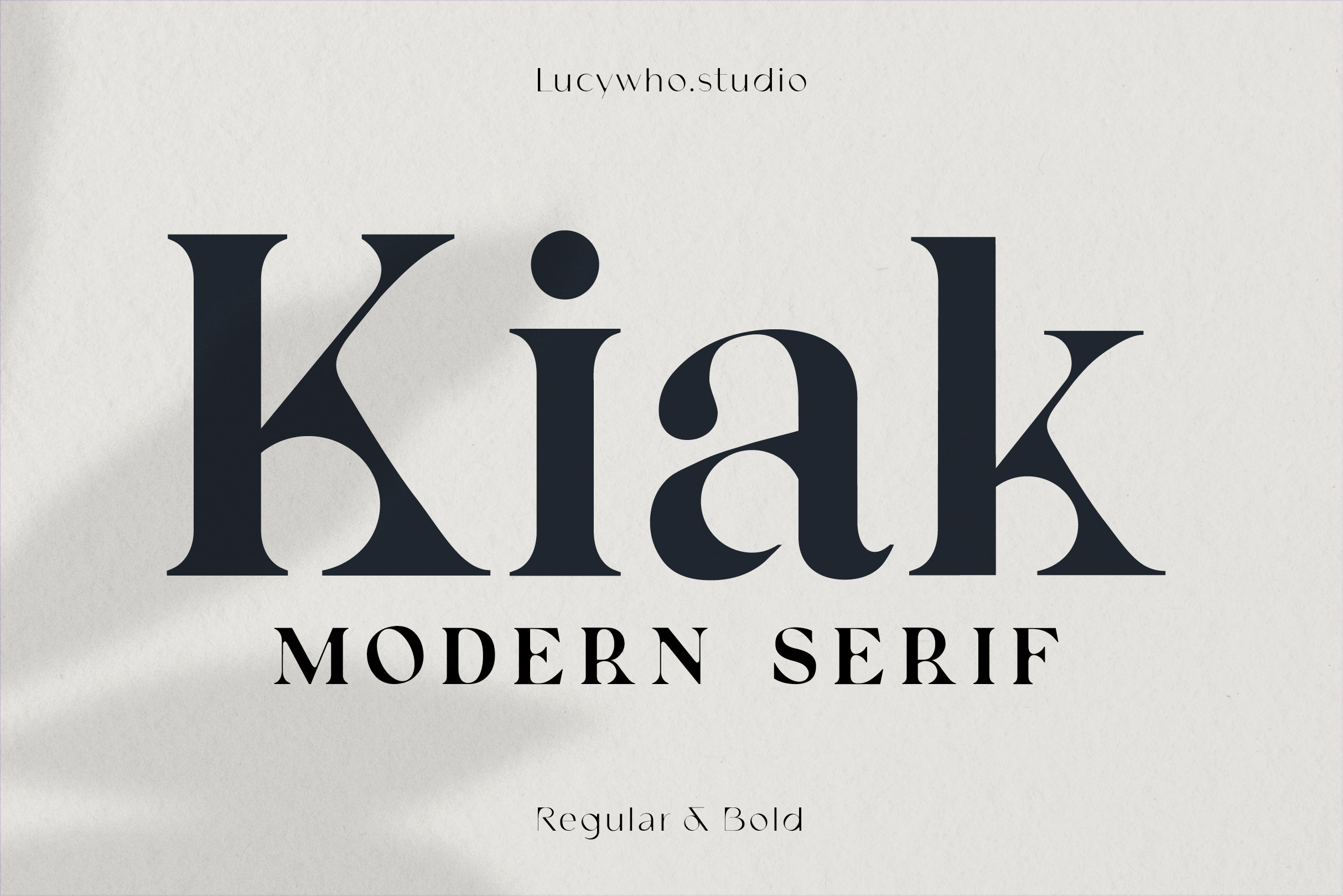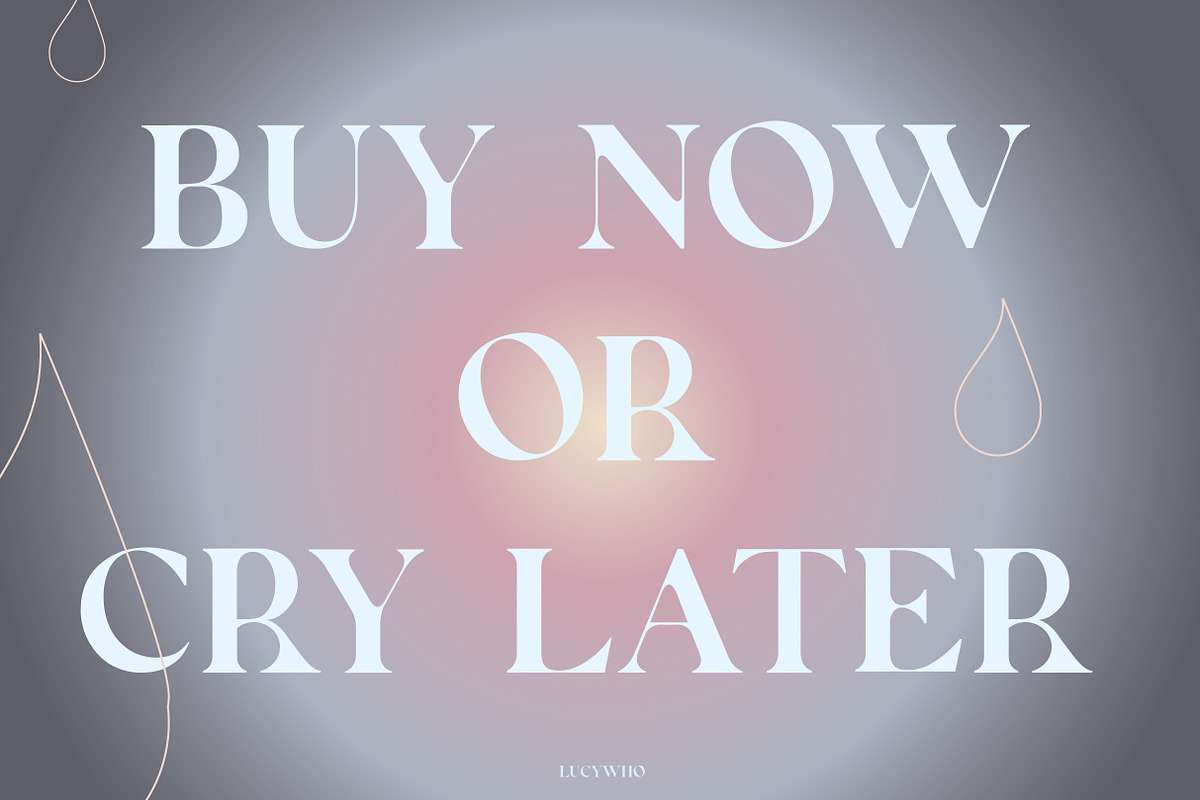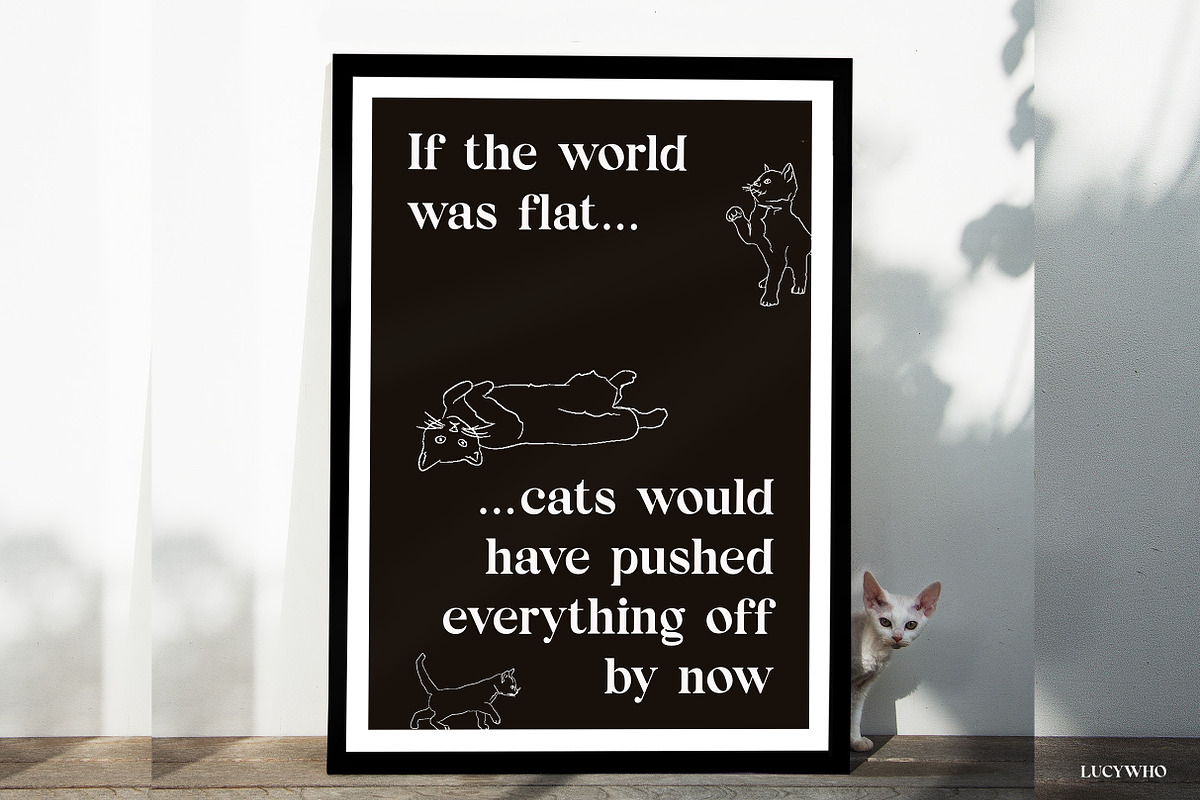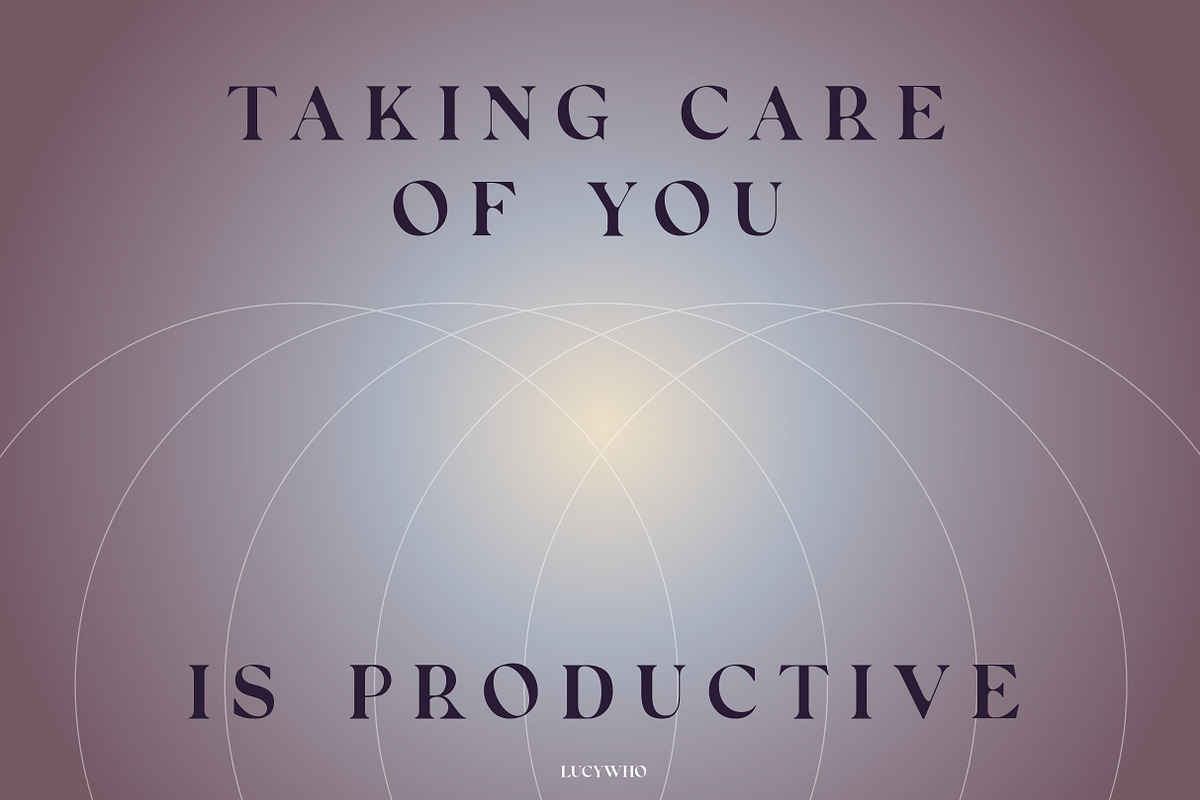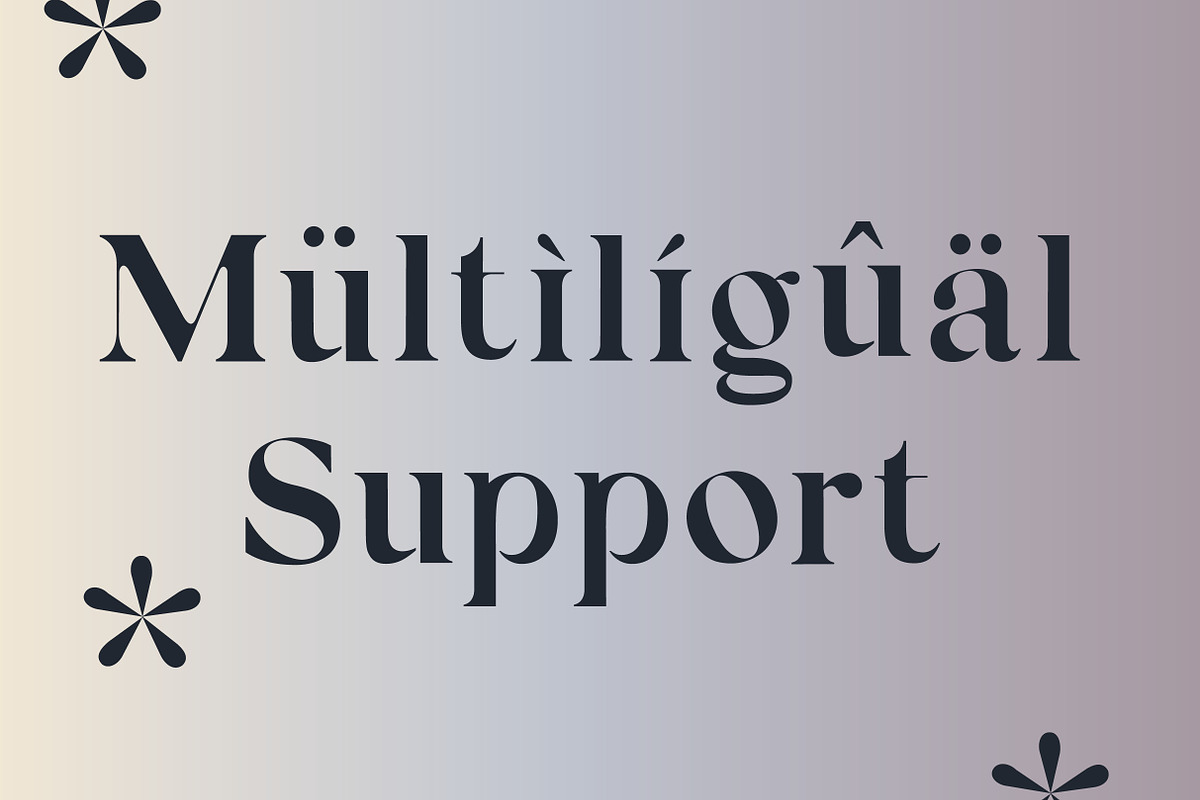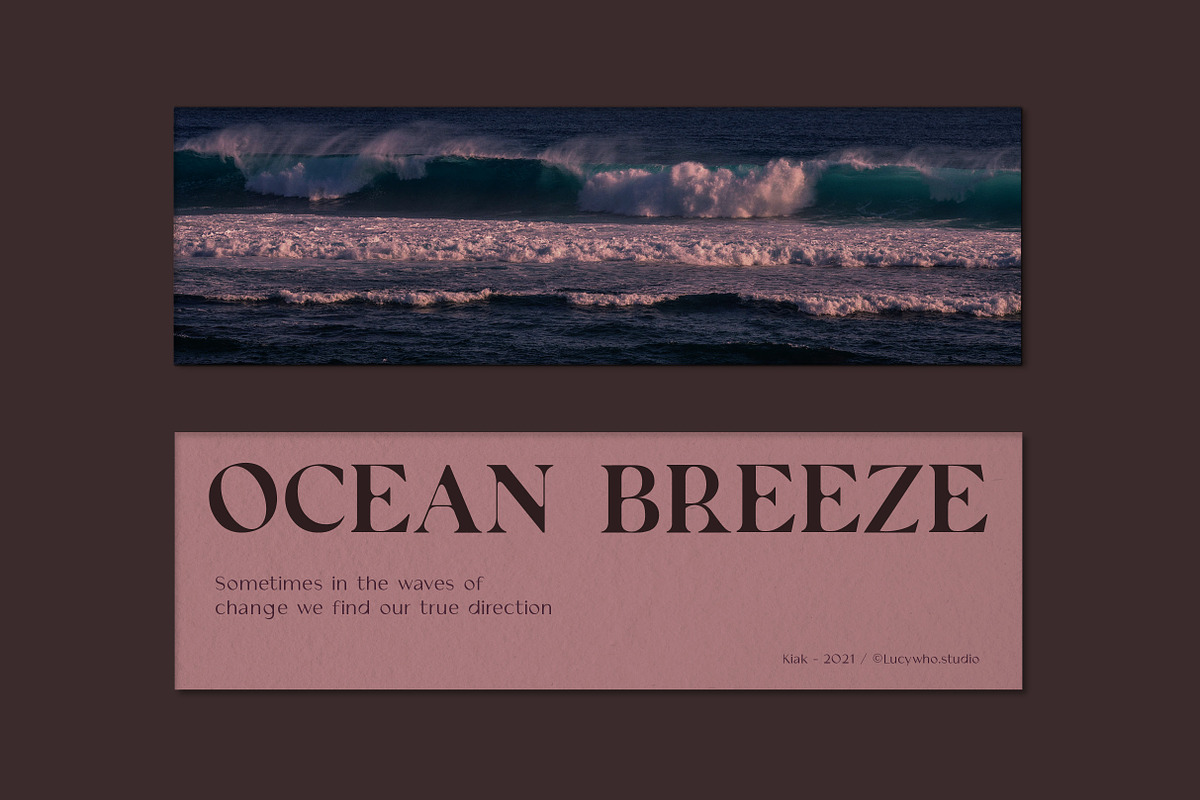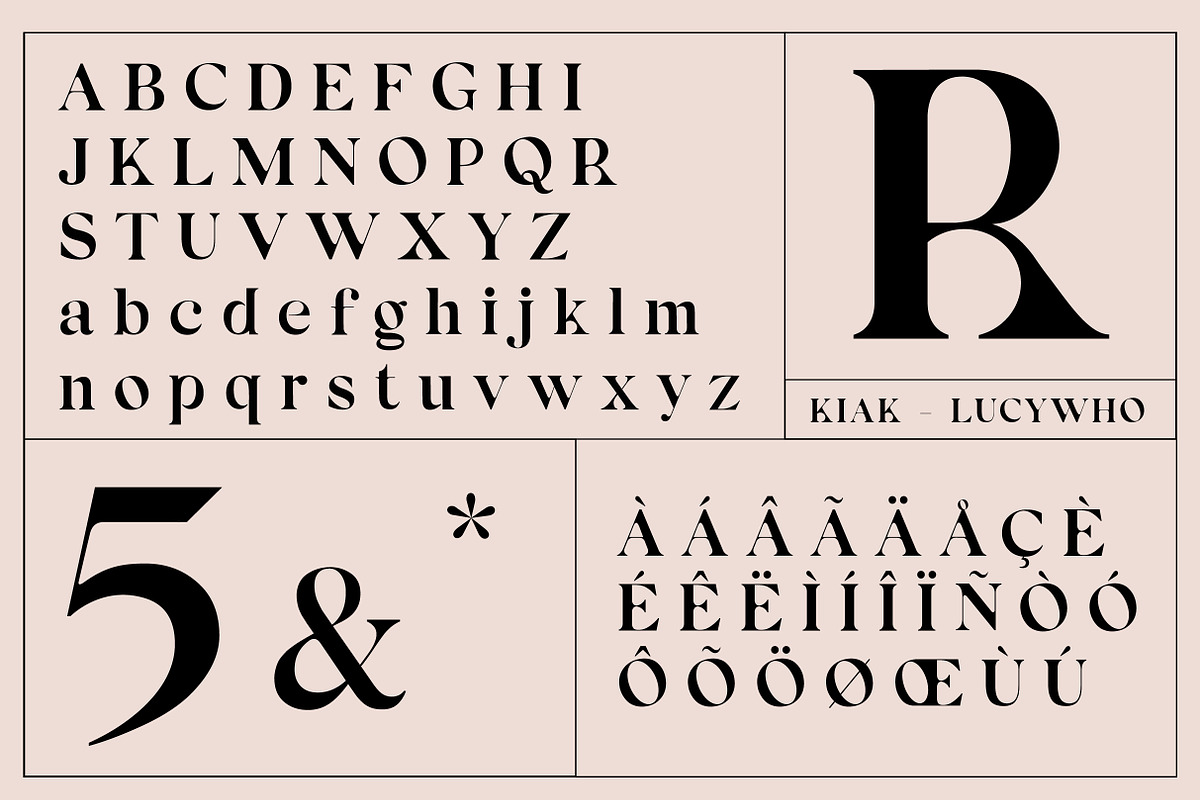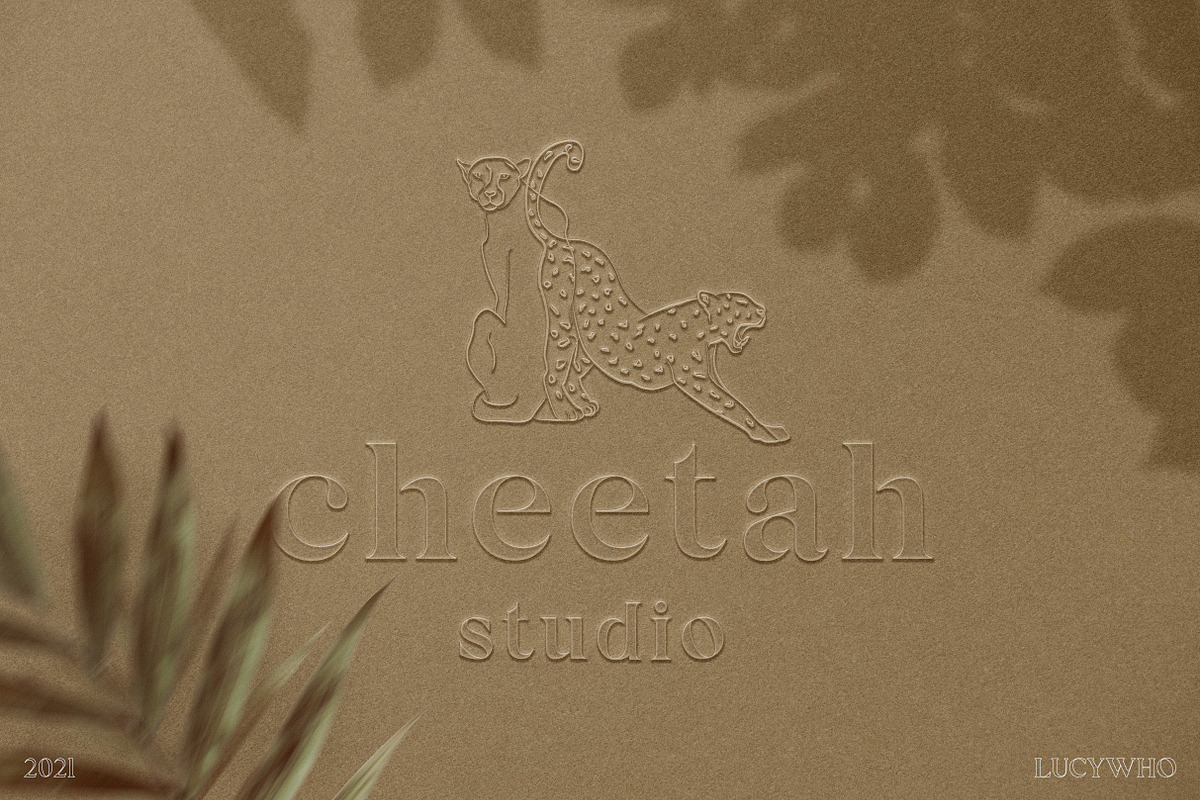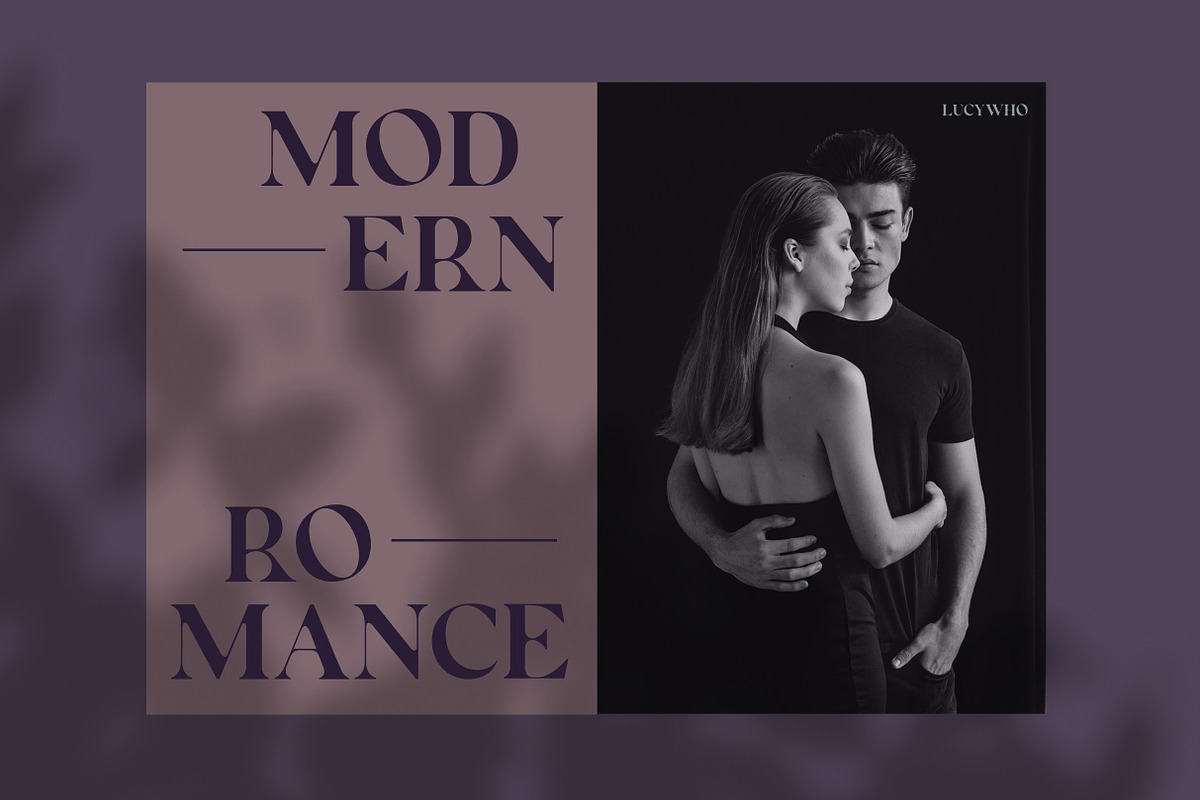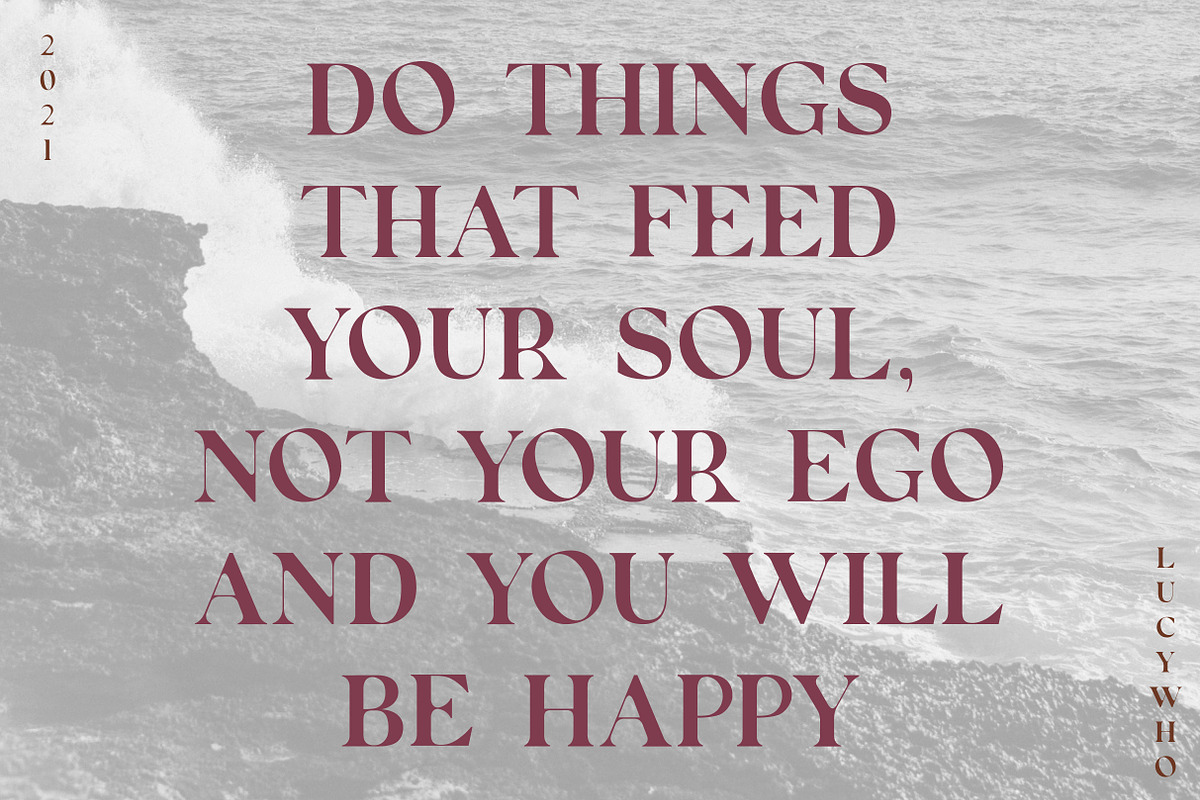
Kiak Serif Font
Kiak – An unique playful serif font
Kiak is playful and modern serif font. This typeface provides a timeless and unique look for any design. Use Kiak for branding, magazine design, logo design, headlines, posters, packaging, cards or your wedding invitation.